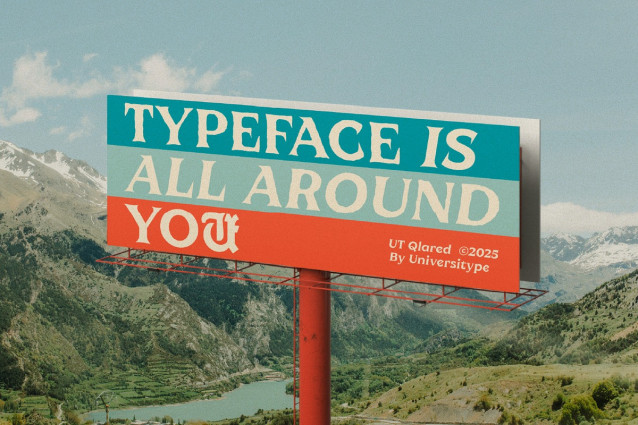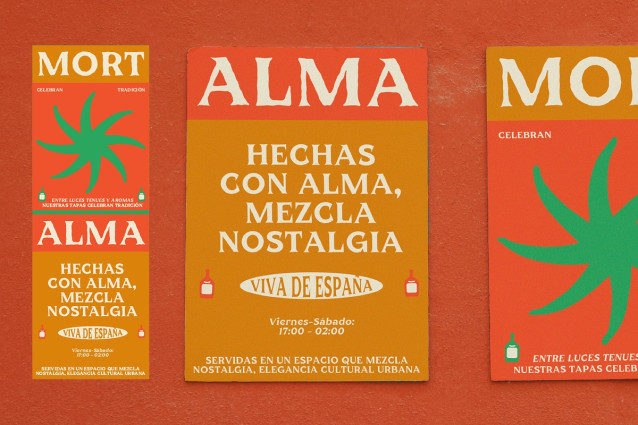
UT Qlared Font
UT Qlared Font is a bold flare serif typeface designed to bring attitude and rhythm into modern design work. Sharp, tapered serifs collide with fluid, liquid-like terminals, creating a look that feels expressive, confident, and editorial-driven.
Built with strong contrast and distinctive shapes, UT Qlared performs best where typography needs to lead the visual story. From clean and controlled layouts to textured, print-inspired compositions, its four styles let you shift tone without switching typefaces.
Perfect for branding, packaging, editorial layouts, posters, apparel graphics, and standout digital content.